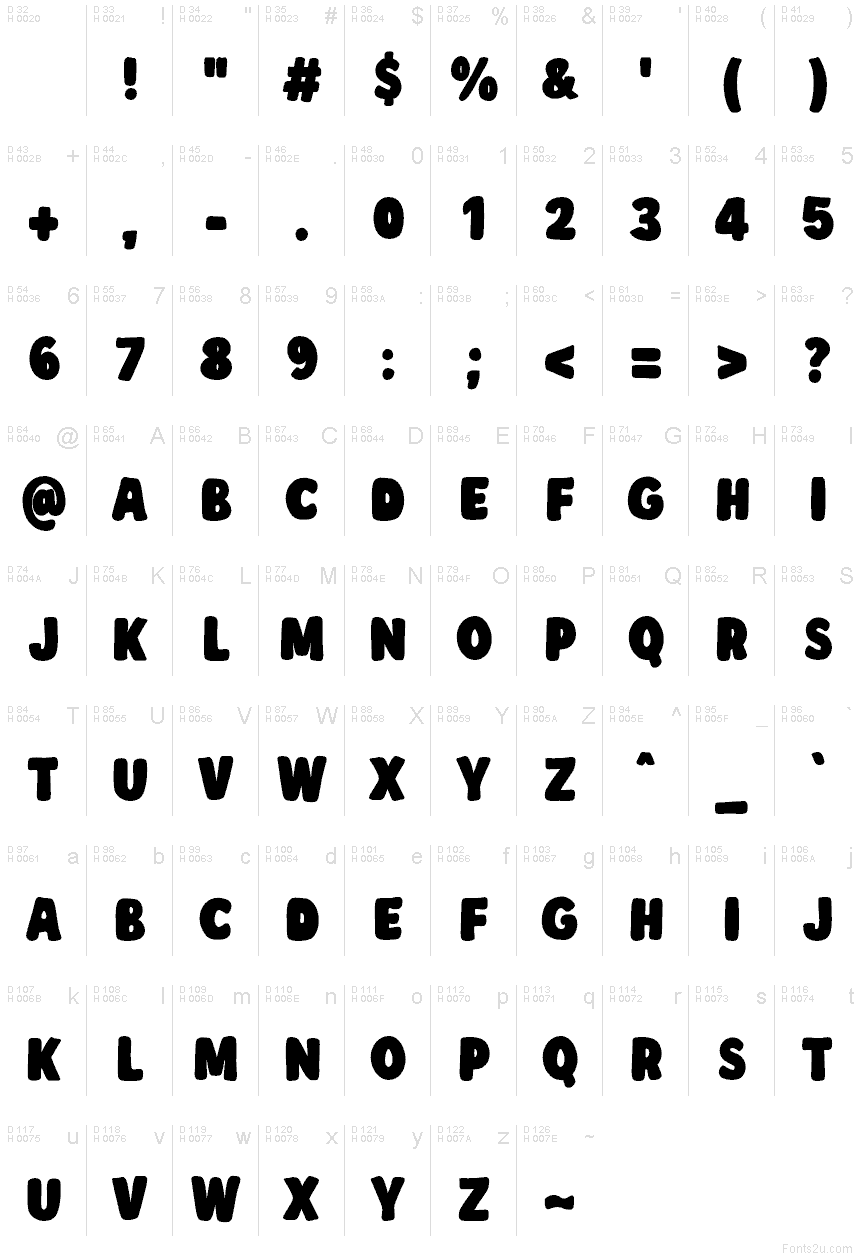
Creamy Soup
Creamy Soup font, by MJType, is a bold display font with cartoon elements that bring letters to life. Equally inspired by retro styles and contemporary typography art, the typeface shines through its exaggerated proportions which give it a unique look. Creamy Soup letters’ rounded shape is especially eye-catching, making them both friendly and engaging.
This free cartoon font can be used in branding for fun brands that offer children’s food or games. The display font also works on the packaging of candy or chocolate snacks like biscuits etc. The playful character design of Creamy Soup opens doors for many design possibilities such as brochures, infographics, digital games titles, etc.